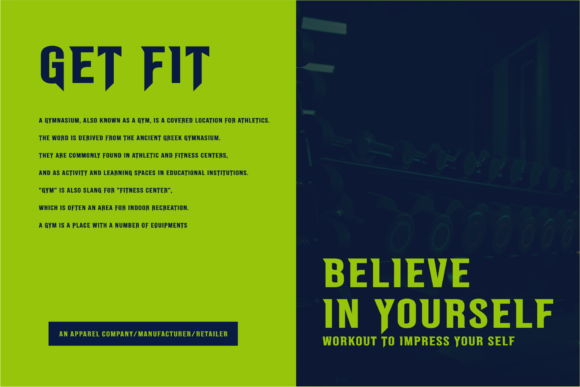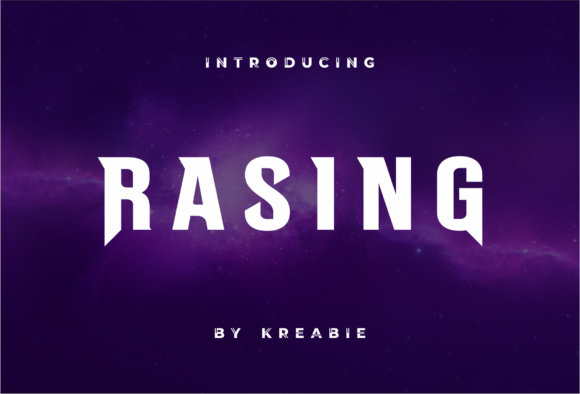
Introduction to Rasing Font
Have you ever been working on a creative project, pouring your heart and soul into it, and just as you’re about to hit publish, you realize that something is missing? That’s exactly what happened to me when I stumbled upon the Rasing Font. This bold, modern, and assertive display font was the missing piece I needed to elevate my design to the next level.
As a designer, I’m always on the lookout for high-quality design resources that can help me create unique and eye-catching designs. And that’s exactly what the Rasing Font offers. With its transparent background and versatile style, it’s the perfect addition to any creative project. Whether you’re designing a website, business card, or social media graphics, the Rasing Font is sure to add a touch of sophistication and class.
Key Features of Rasing Font
- High-quality, professional font design suitable for creative projects
- Transparent background for seamless integration with any design resource
- Available in 6 different font sizes, ranging from 12 to 72 points, to suit various design needs
- Resolution-independent design, ensuring crisp and clear text at any resolution
- Unique, modern design style with a clean and minimalist aesthetic
- Perfect for use in graphic design, digital art, and other creative projects
Honest Review: Rasing Font
As a designer, I’m always on the lookout for high-quality design resources to elevate my creative projects. Rasing Font caught my attention, and I decided to give it a try.
Here’s what I think:
- What works well: ✨ Rasing Font has a sleek and modern design that’s perfect for contemporary projects. The font is highly customizable, allowing me to adjust the size, color, and style to suit my needs. The transparent background is also a great feature, making it easy to overlay on images or videos.
- ⚠️ The font selection is limited, and I found myself wishing for more options. As a designer, I like to have a wide range of choices to suit different project requirements.
- ⚠️ The font may not be suitable for projects that require a more formal or traditional look. Its modern design may not be the best fit for those types of projects.
Overall, I think Rasing Font is a solid choice for designers looking for a high-quality, modern font. While it may have some limitations, it’s a great resource to have in your toolkit.
Rasing Font
Design Resource for High-Quality Projects
Rasing Font is a versatile and stylish design resource ideal for creative projects. Its unique style and transparent background make it perfect for various applications.
Tips for Getting the Most Out of Rasing Font
To get the most out of Rasing Font, consider the following tips:
- Experiment with different font sizes and styles to achieve the desired effect.
- Combine Rasing Font with other design elements to create a cohesive look.
- Take advantage of the font’s transparent background to add depth to your design.
Common Use Cases for Rasing Font
Rasing Font is suitable for a variety of creative projects, including:
- Branding and